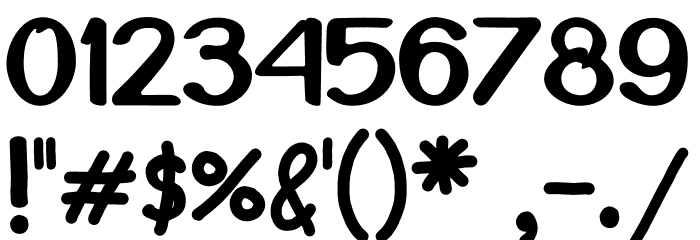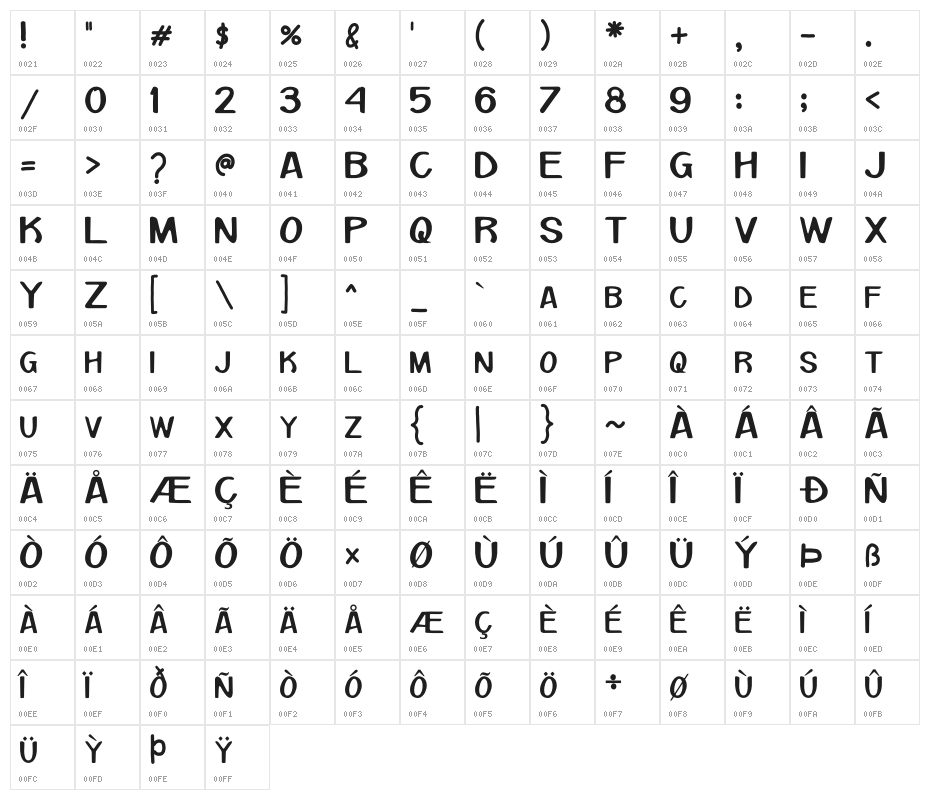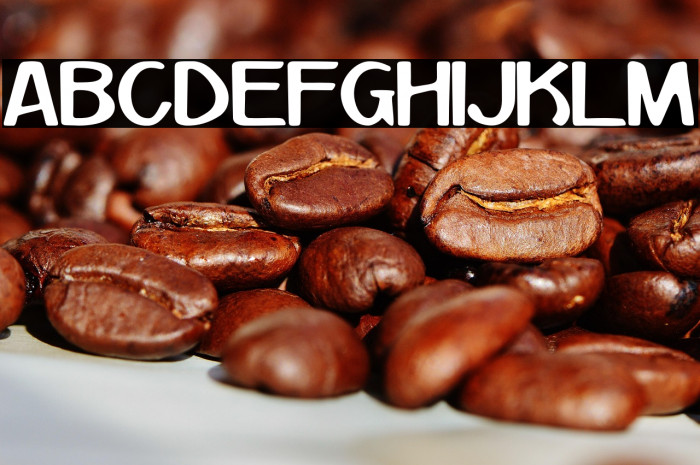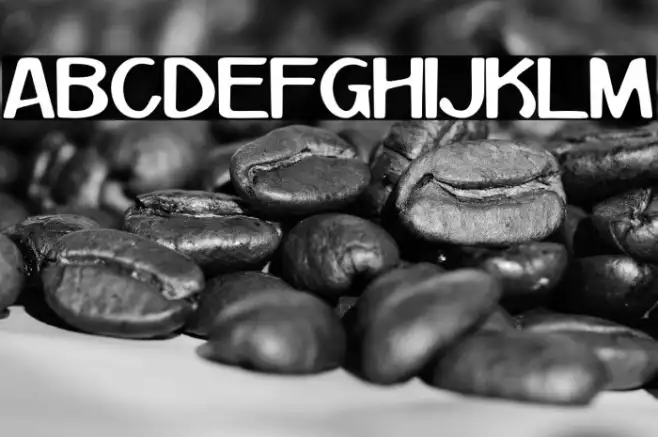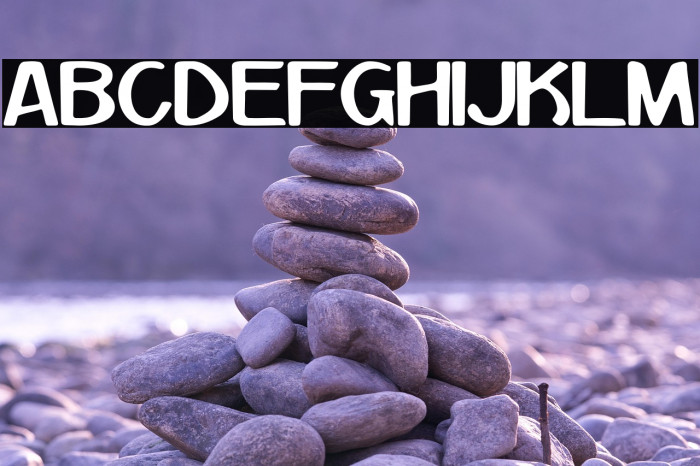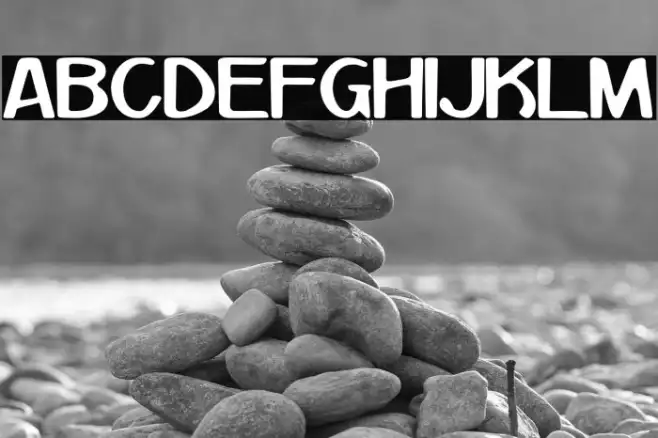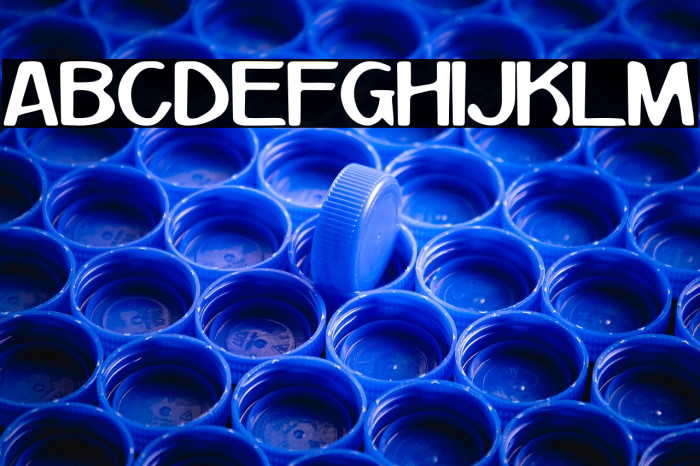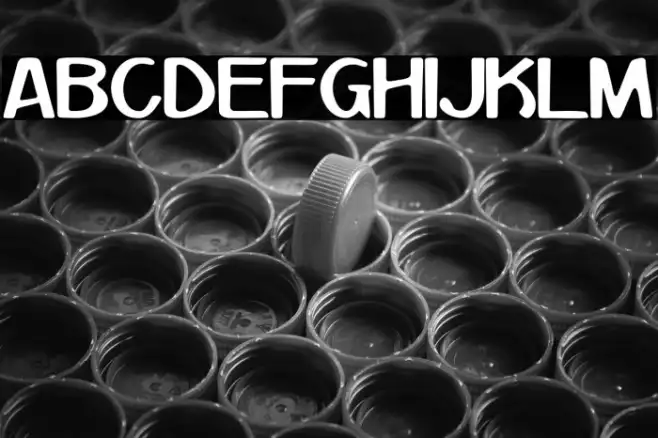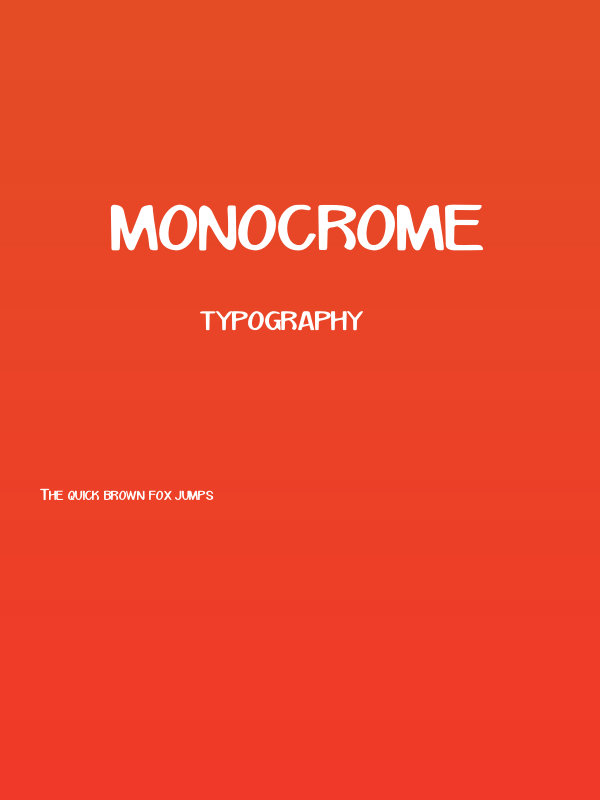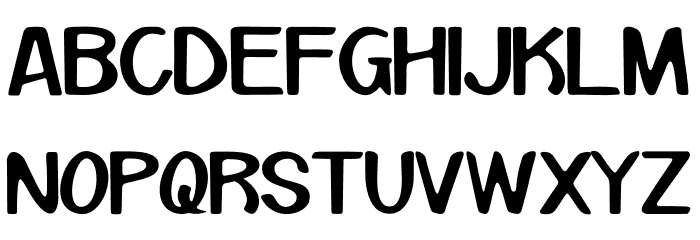
MONOCROME Font
MONOCROME Description
This font features bold, rounded characters with a playful and informal style. The letters are uniformly thick, giving them a strong presence on the page. The rounded edges and smooth curves contribute to a friendly and approachable appearance. The numerals and special characters maintain the same boldness and rounded style, ensuring consistency throughout. This font is highly legible and stands out due to its thick strokes and distinctive shapes.
Overall StylePlayful
Proposed ProjectsIdeal for children's books, playful branding, casual posters, and social media graphics.